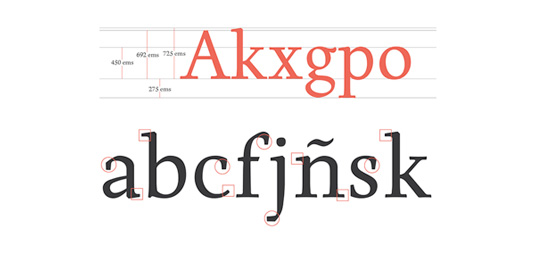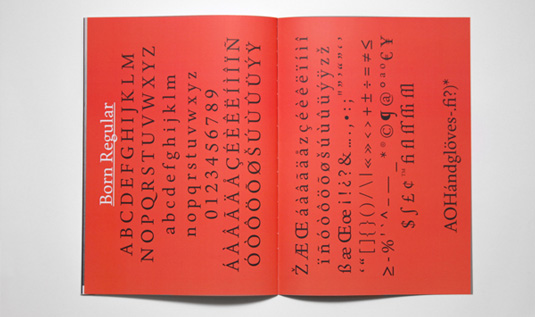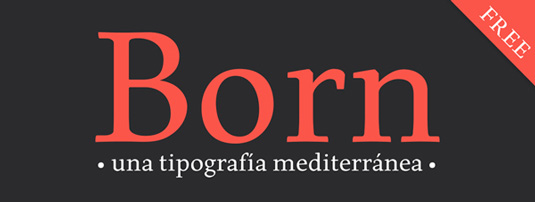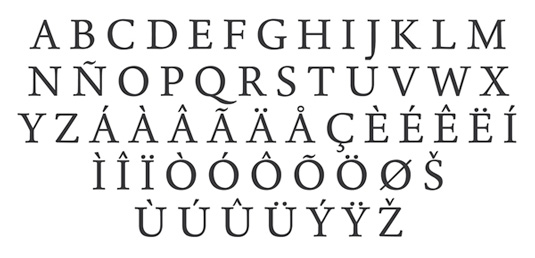
Font of the day: Born
Born by Carlos de Toro
Graphic designer Carlos de Toro is passionate about typography and type design. So much so that his latest project was developing Born, a new typeface inspired by traditional calligraphy.
"Born is a humanistic typeface that is based on traditional calligraphic forms, but with some new features in its endings, strokes and drops, that provide a more open, fresh and actual look," he explains. "It also has a big X height, so offers a high legibility even at small sizes.
"Born typeface, born in Barcelona city at early 2013, bears the name of one of the most pinturesque Barcelona districts, on the shores of the Mediterranean takes together the old and the traditional, and also the multicutural stuff and new trends, blending these in its narrow and winding streets, creating a symbiosis between tradition and modernity. This is a Mediterranean type, which it’s open to new times."